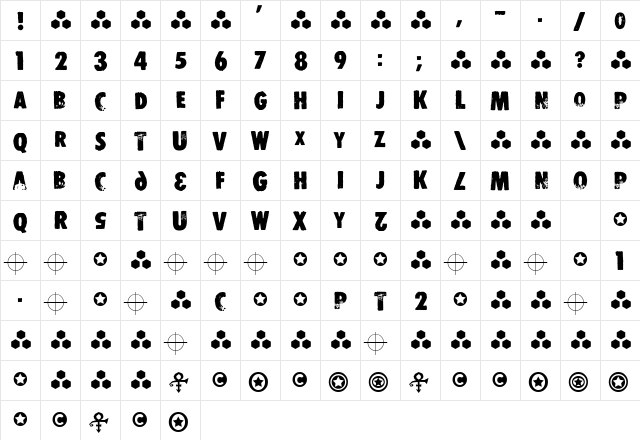
STOMPER Regular
Design Context for STOMPER Typeface
STOMPER is a composed and adaptable typeface that performs quietly and consistently across a wide range of design contexts.
Pro Tip: Use STOMPER in both headline and body roles to test its range before committing to a single application.